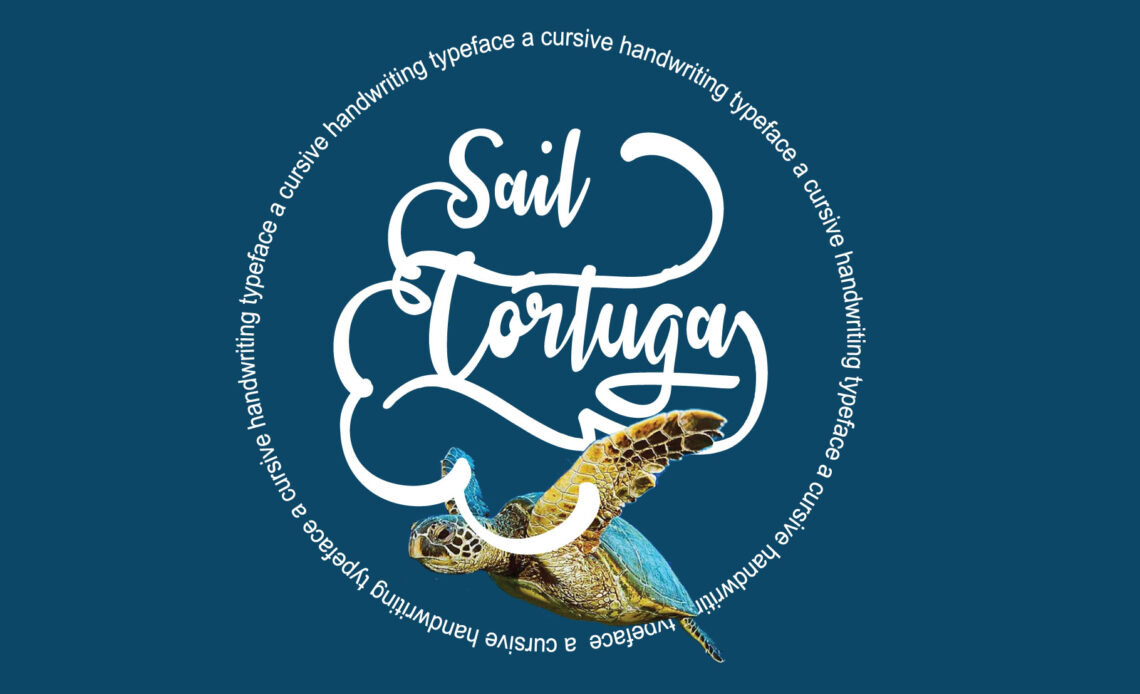
Sail Tortuga Font
Journey into a realm of elegance and charm with Sail Tortuga, a captivating cursive font that will transform your designs into masterpieces. Its delicate, handwritten strokes exude a timeless appeal that adds a touch of heartfelt authenticity to any project. The smooth, graceful lines of Sail Tortuga create a visual symphony, inviting you to immerse yourself in its undeniable beauty.
Sail Tortuga's versatility shines through its adaptability to a wide range of creative endeavors. Whether crafting enchanting digital designs, captivating web layouts, or producing heartfelt logotypes, Sail Tortuga effortlessly elevates your creations to new heights. Its allure extends to romantic invitationals, where its enchanting flow weaves a tale of love and devotion.
With Sail Tortuga, your designs will captivate audiences, leaving an enduring impression of artistry and sophistication. Its ability to seamlessly blend into various design aesthetics makes it an essential tool for creative visionaries. Embrace Sail Tortuga's charm and watch as your projects flourish into works of art.
Sail Tortuga is more than just a font; it's an experience. Let your imagination soar as you explore the endless possibilities that await you with this enchanting font. Dive into creativity and unlock a world of elegance and timeless beauty with Sail Tortuga.